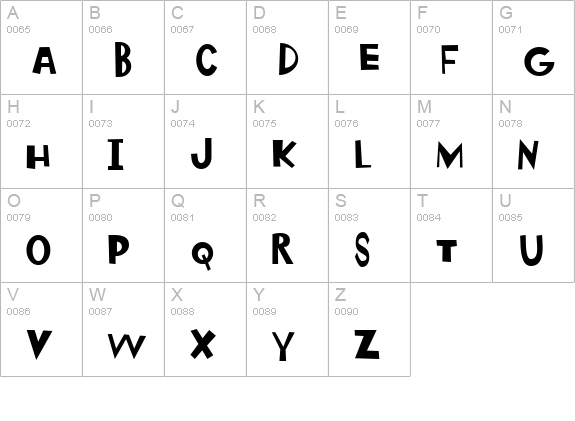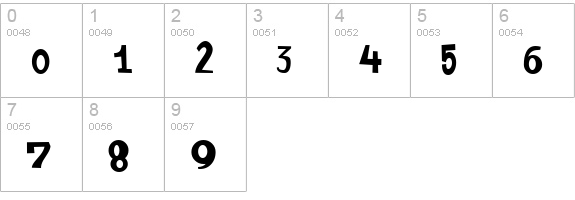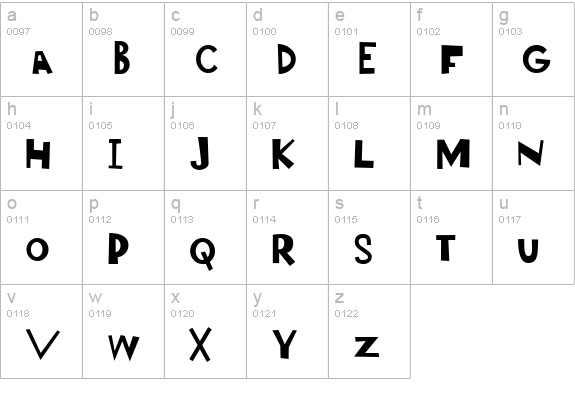
Wonderlism Font Details
Introducing Wonderlism font, a whimsical and enchanting typeface that will bring a touch of magic to your designs. With its playful curves and elegant lines, Wonderlism is perfect for adding a hint of wonder to any project. This delightful font is not only visually stunning but also versatile, making it suitable for a wide range of design applications. Whether you're creating invitations, greeting cards, posters, or branding materials, Wonderlism will effortlessly elevate your work to new heights. Best of all, Wonderlism is available for free download at FontsMarket.com. So go ahead and unleash your creativity with this charming and captivating font today!